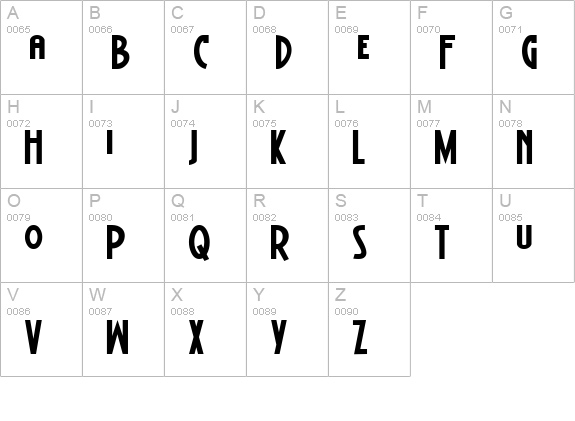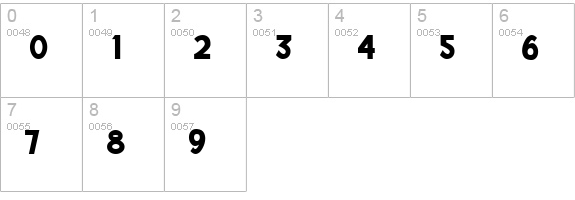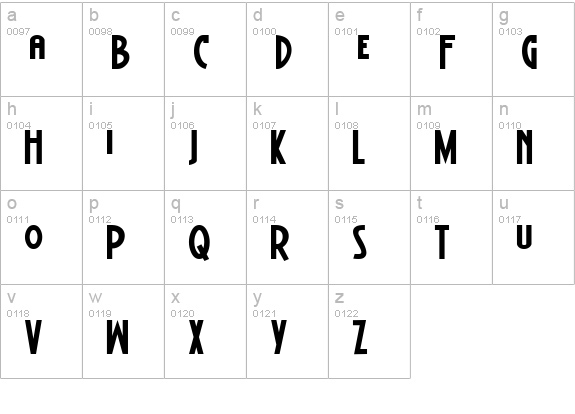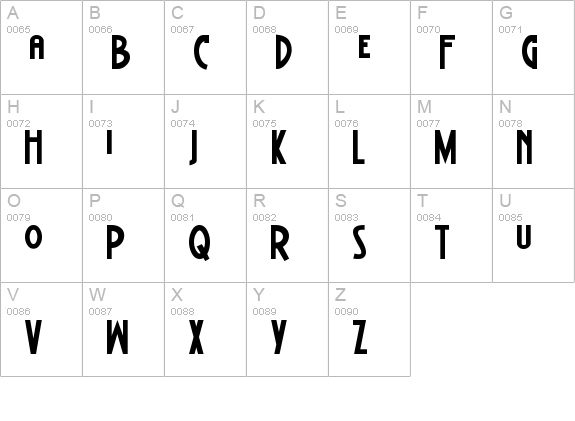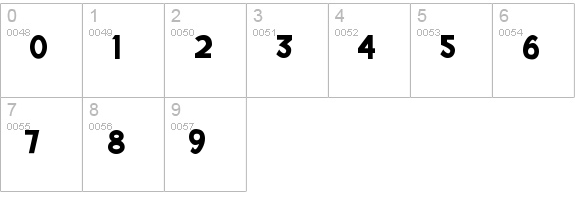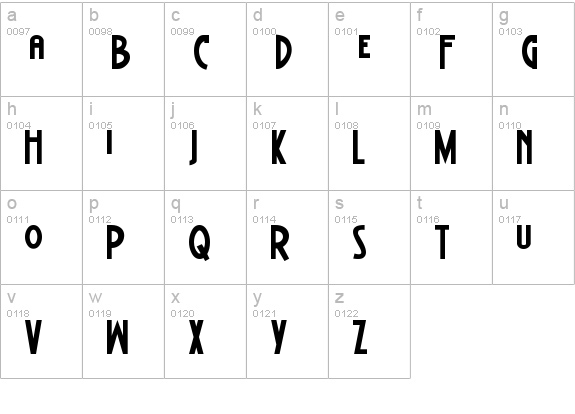
BattleLines font is a versatile and dynamic typeface that brings a bold and impactful presence to any design project. With its sharp lines and distinctive style, BattleLines is perfect for creating eye-catching headlines, titles, and branding materials. This font exudes strength and determination, making it ideal for projects that require a strong and commanding aesthetic. The best part? BattleLines font is completely free to download at FontsMarket.com. This means you can easily add this powerful font to your collection without any cost. Whether you're working on a poster, logo, website, or any other creative project, BattleLines font will make a bold statement and leave a lasting impression on your audience. Download BattleLines font today and take your designs to the next level!